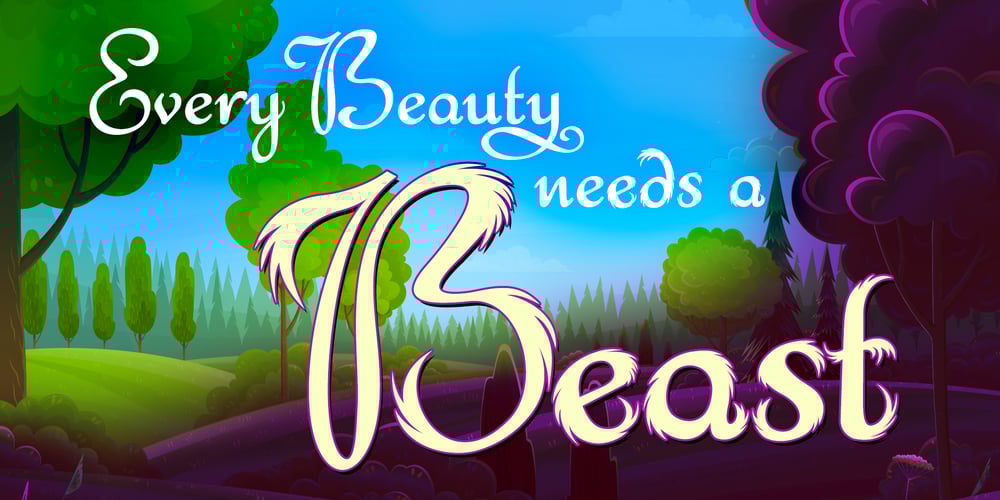
Bex Script
Bex Script font
Bex Script Font Family was designed by DC Scarpelli and published by The Ampersand Forest. Bex Script contains 2 styles and family package options. Bex Script is a riff on traditional French script forms: the Bâtarde, the Ronde, and the Coulée. It has two versions: First, there’s La Belle, a straightforward, lovely interpretation of the script form, suitable for things like invitations, poetry and branding. La Belle’s evil twin is La Bête, a more whimsical (and considerably more hairy) version, great for anything that requires an elegant-but-beastly feel.Bex is surprisingly versatile! With three optional capital forms (Swash, Caps, and Small Caps) all taller than the x-height, Bex has a variety of voices. A full small cap set and a full set of Swash Caps, plus a large complement of alternates, initial forms, terminal forms, and ligatures makes it customizable and… well, FANCY!Additionally, both versions of Bex Script have a set of ten ornament glyphs. La Belle has a combination of fleurons on a culinary theme and symbols of France. La Bête has ten pseudoheraldic beasts that would feel at home at the top center of any whimsical letterhead. NOTE: A few years ago in Paris, I was lucky enough to stop at the Librairie Paul Jammes in St Germain-des-Prés, where I bought a turn-of-the-19th-century signature from a Type Specimen of the printer Joseph Gaspard Gillé. The irregularity of his script types — particularly the ones at smaller sizes, like the Cicéro — was very intriguing. They seemed to blend the Ronde with some elements of the Bâtarde and Coulée. And they, along with the work of French master penman Louis Rossignol, gave Bex Script its initial form.